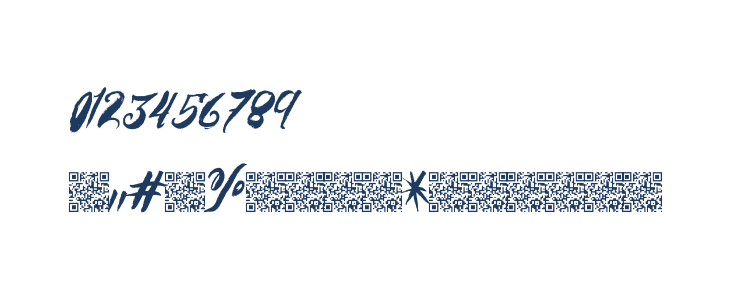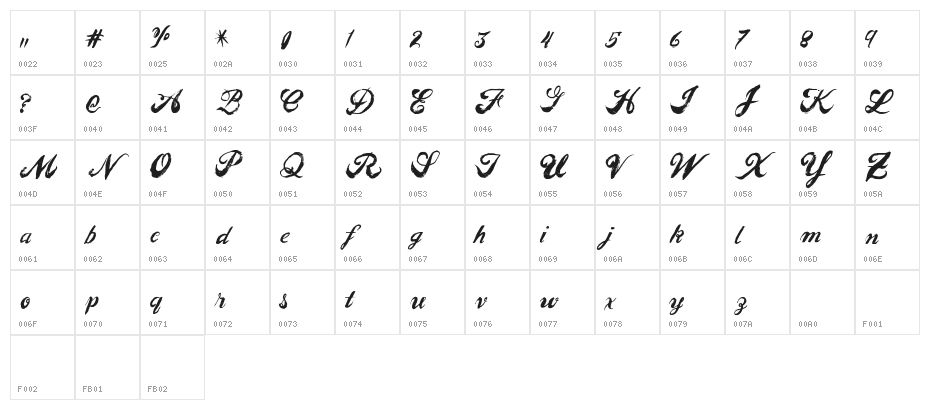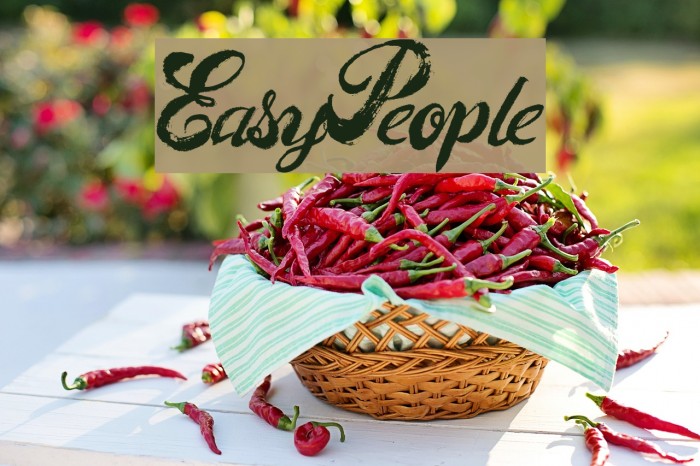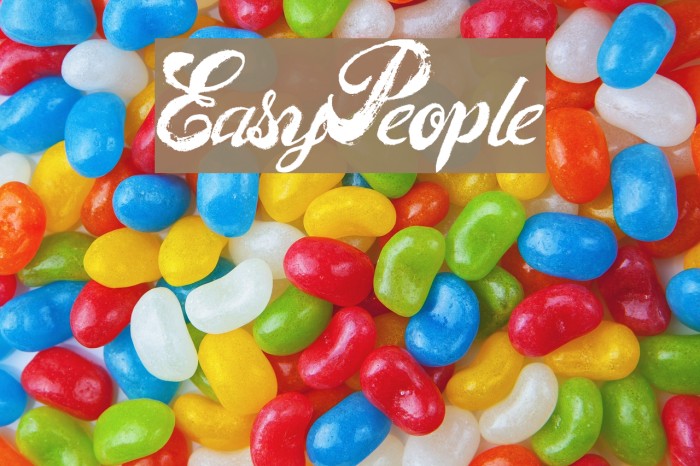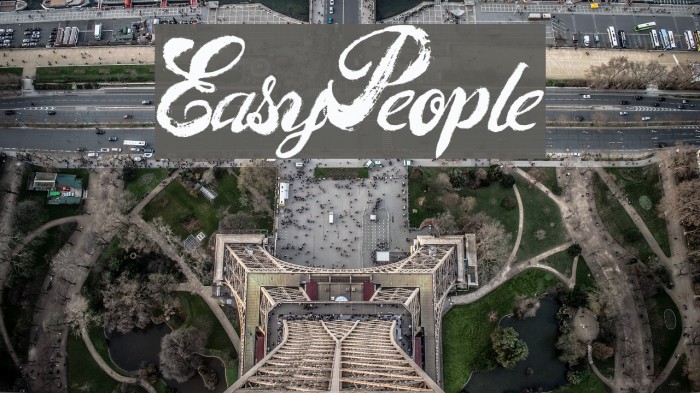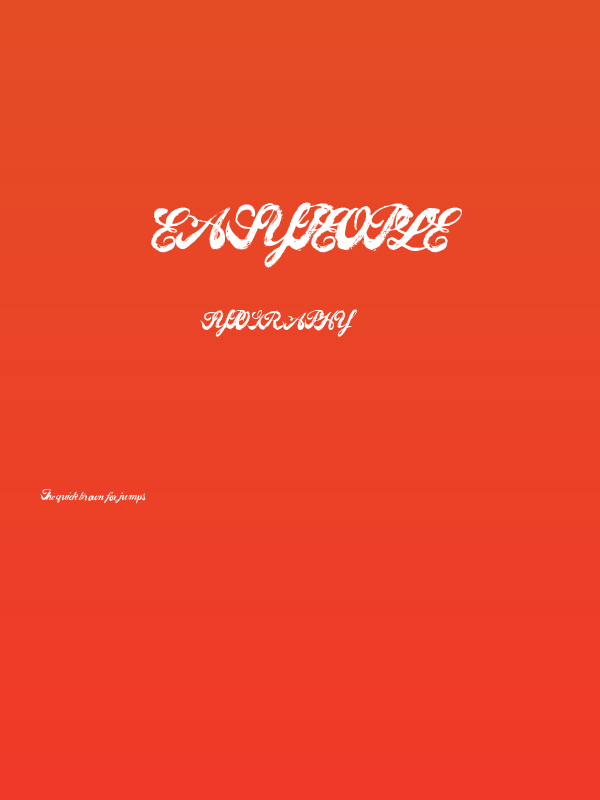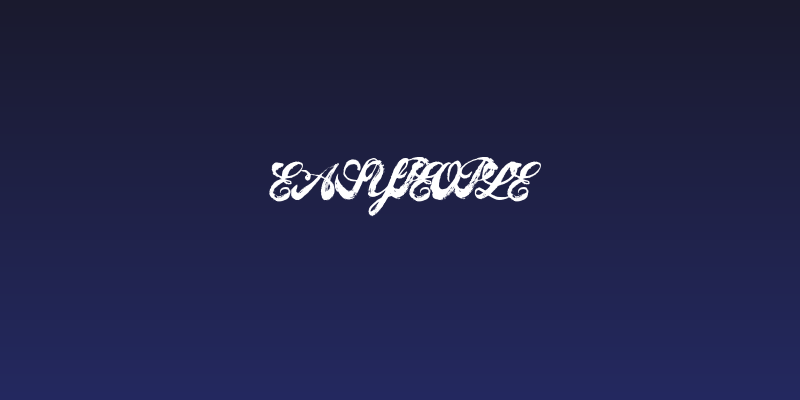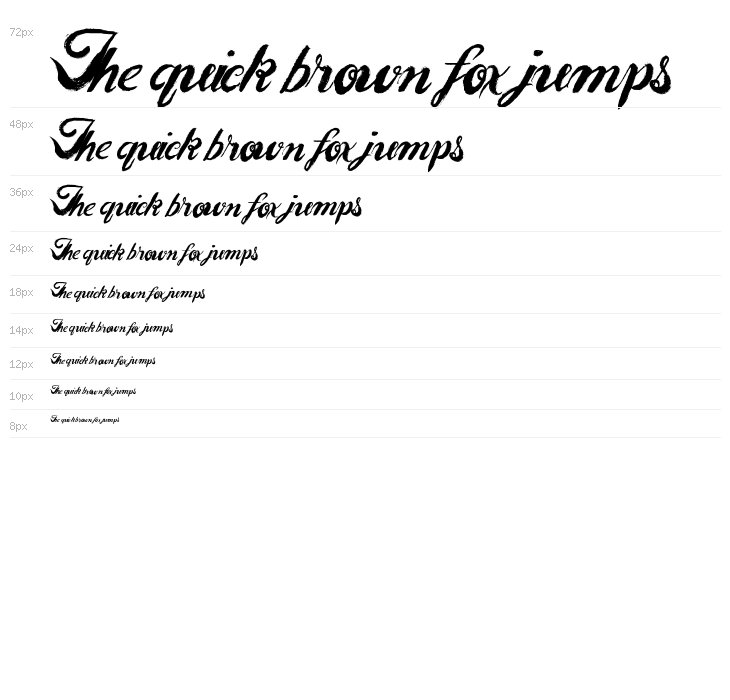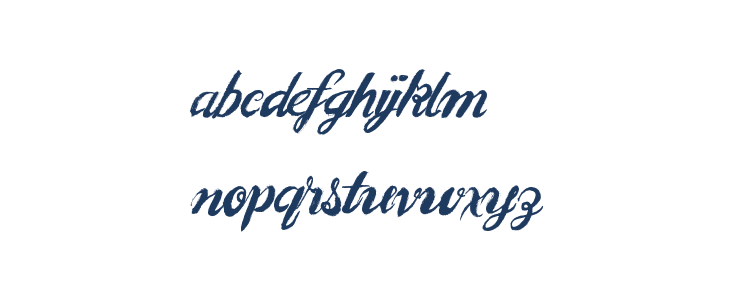
EasyPeople Font
EasyPeople Description
This font features a bold and expressive script style with a calligraphic flair. The characters are intricately designed with flowing strokes and a dynamic presence, giving it a hand-drawn appearance. The uppercase letters are particularly elaborate, with sweeping curves and flourishes that add a sense of elegance and sophistication. The lowercase letters maintain a consistent style, complementing the uppercase with their own unique charm. Numbers and special characters are crafted with the same attention to detail, ensuring a cohesive look across all elements. The overall design is both artistic and legible, making it suitable for creative projects that require a touch of personality.
| Proposed Projects | Ideal for wedding invitations, greeting cards, branding, and artistic posters. |